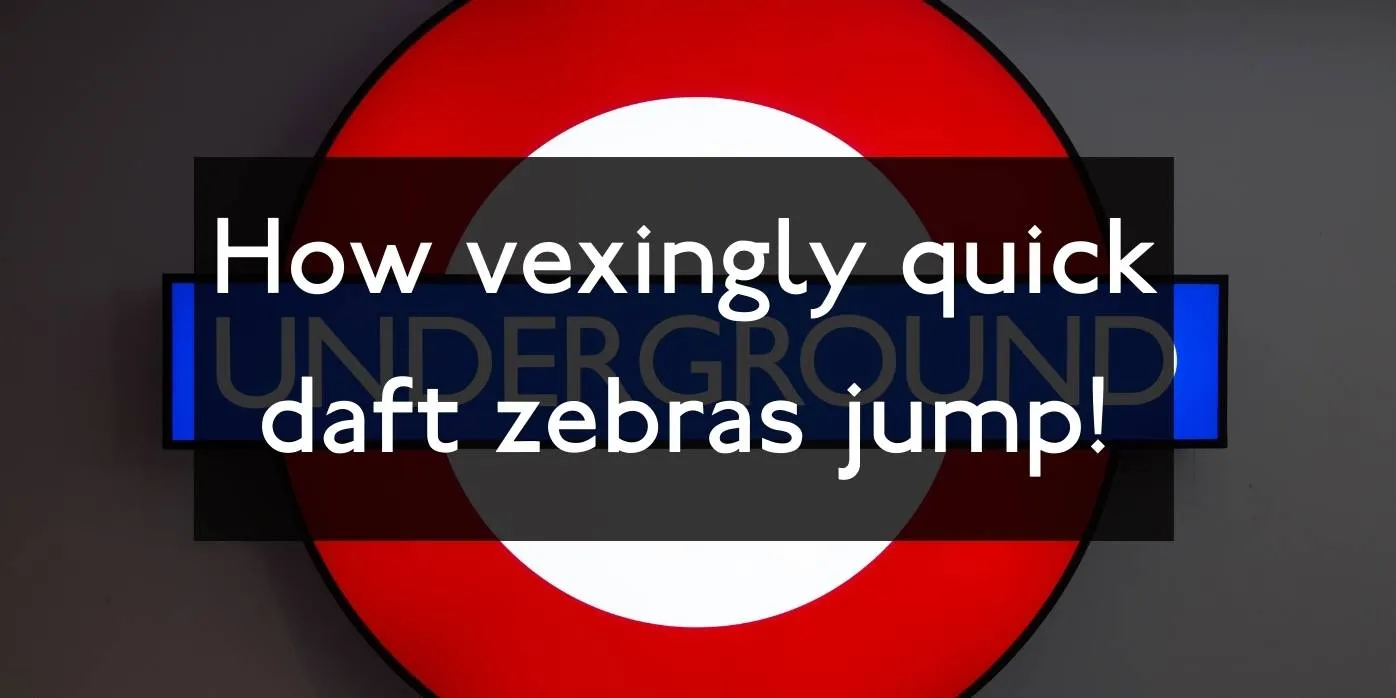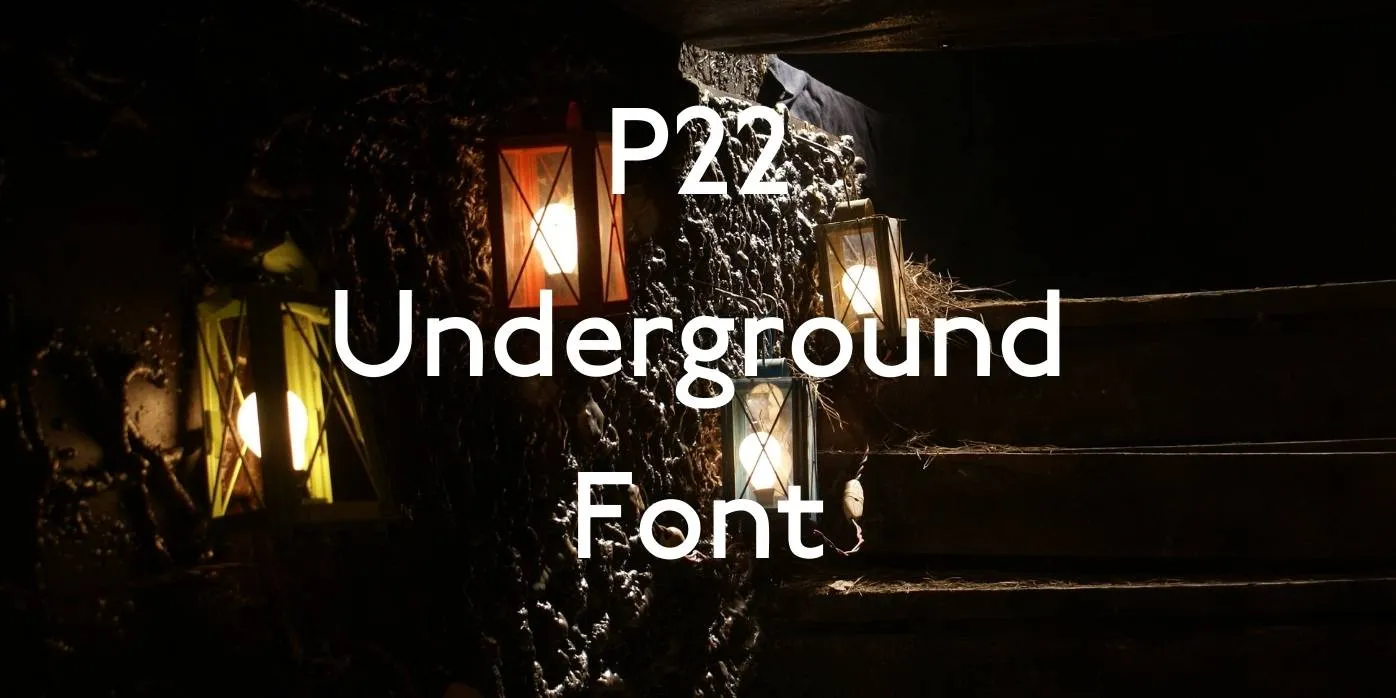
P22 Underground Font
P22 Underground Font is designed by a well-known designer named Edward Johnston in the year 1997. This font belongs to the Sans-Serif typeface. It is a very interesting font. It was designed to be used in an underground setting.
The font has a very modern and stylish look to it. It is perfect for anyone who wants to add a touch of sophistication to their designs. This typeface is famous for being light, Bold, and very legible. it is very light and legible, making it perfect for any type of signage you might need in an underground setting.
This font has a modern and stylish look to it that will make any project stand out. If you are looking for an eye-catching typeface for your next project, be sure to check out this stunning typeface. This typeface contains different characters and spaces between these characters. This cute Font is perfect for adding a touch of sophistication to any project.